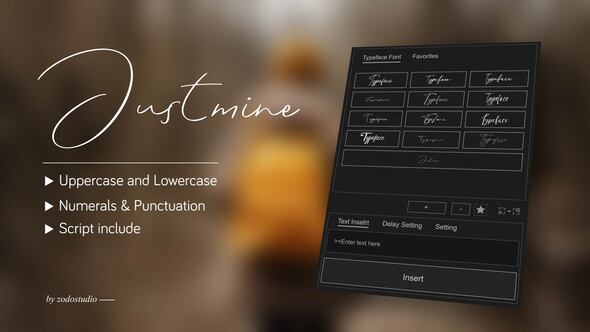
🔥 What Makes Justmine Typeface Stand Out?​
The Justmine Animated Typeface isn’t just another type template. It’s a powerful tool optimized to boost design impact and workflow speed. With fully customizable settings, bold animations, and a clean aesthetic, it’s ideal for anything from YouTube videos to corporate presentations.
Key Features Include:
• ✅ Smooth and elegant animations
Whether you're building kinetic typography, animated intros, or visually striking captions, Justmine gives you complete control in a sleek, creative package.
🎯 Ideal Uses for the Justmine Animated Typeface​
Not sure how to use this typeface in your next project? Here are just a few practical applications:
• 🎬 YouTube Titles & Lower Thirds – Attract attention and improve viewer engagement
• 📊 Business Presentations – Add visual flair to otherwise static content
• 📱 Social Media Reels – Create scroll-stopping titles for Instagram or TikTok
• 🎥 Documentaries and Short Films – Emphasize key points with dynamic typography
• 🛍️ Promotional Videos – Make your products stand out with animated headings